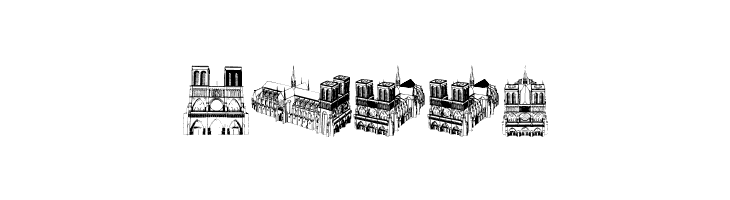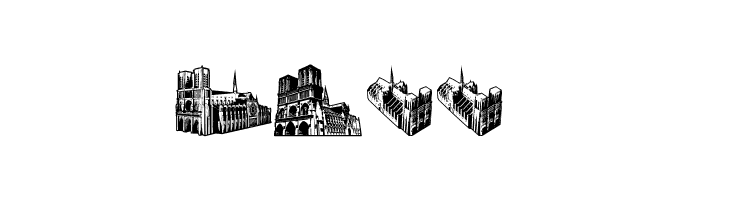
A decorative font featuring detailed illustrations of Notre Dame Cathedral for each character.
A decorative font inspired by Notre Dame's Gothic architecture.